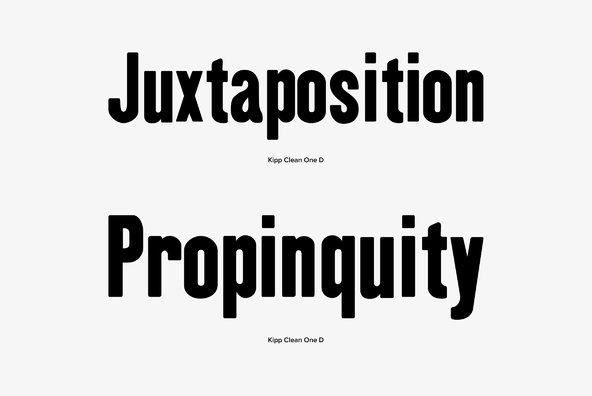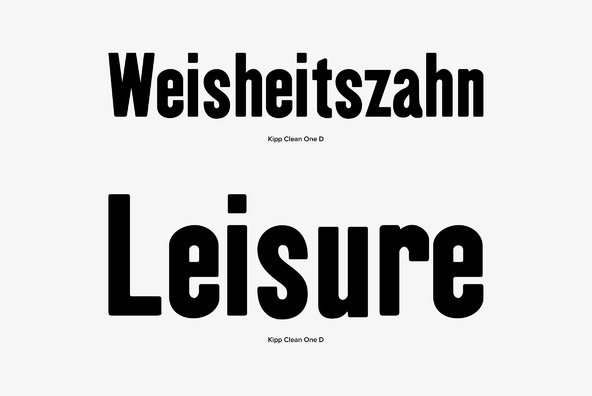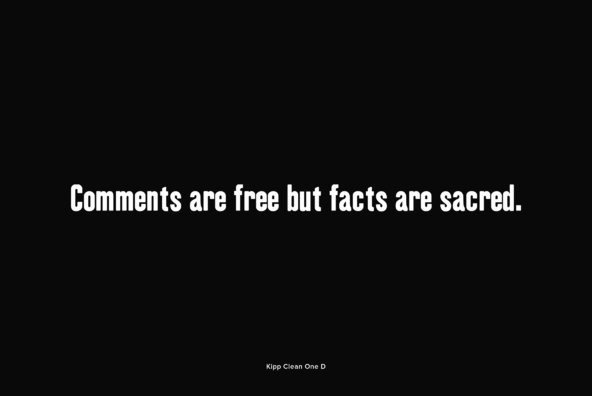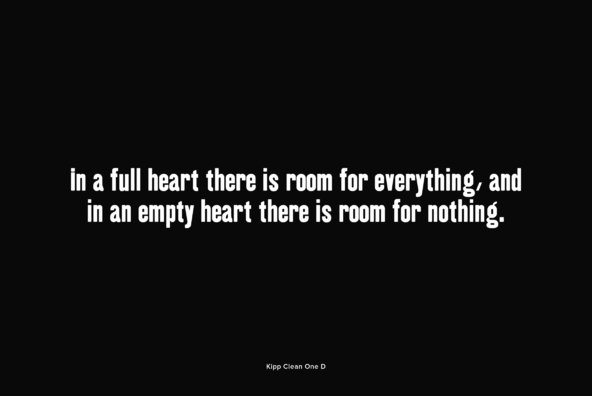
Kipp Clean
Designed by Claudia Kipp in 2004, Kipp Clean is a sans-serif font release by URW. Contains language support for West, East, Turkish, Baltic, and Romanian.